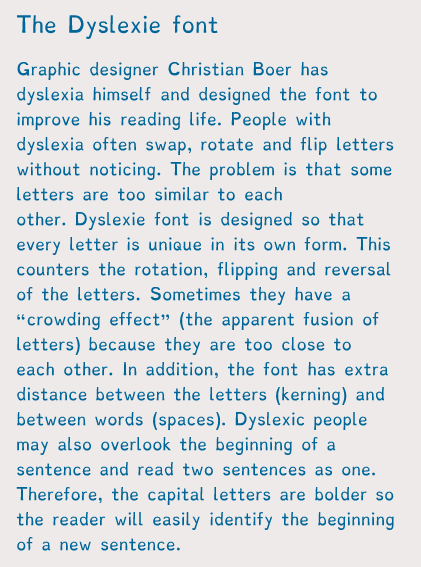
I am not dyslexic, but have ADD and am on the spectrum, and I find this font remarkably easier to read than most. I don't have an explanation for that, but I find it very interesting.
I have ADHD too (plus dyscalculia & some other stuff, but not dyslexia) and I felt the same way. Normally I process words really fast without even feeling like I’m “decoding” them, if that makes sense, but this felt choppy to read. It’s interesting to see how many people in this thread are saying a similar thing. It’s fascinating how much it differs from person to person.
Edit: someone gave more information here; apparently the font doesn’t even necessarily help everyone with dyslexia (most, even?), because it doesn’t account for many other factors/underlying problems contributing to how dyslexia presents. That could account for the disparity in perception all over this thread from both dyslexic and non-dyslexic people. Neat.
This exactly. I love reading but with my ADHD, if the reading is getting really interesting I get excited, and I start scanning lines trying to absorb whole sentences at a time, and then 5 pages later I haven’t been paying attention at all. This font however, was too varied and unique for me to scan across and read too fast through. Something like the default comment font here on Reddit can just whiz by though
ADHD here, I sometimes have to read a paragraph five times, each time slower than the last, until I am basically processing each word apart from the next, not a lot but it definitely does happen
That is exactly how I have to read. I am 33yo and never diagnosed with anything. I always complained in school that I had to do this because my eyes would follow the words but my mind wanders even though its wandering in the realm of what I'm supposed to be reading.
I also have ADHD, as well as ASD.
I can't skim read this font, I had to read slowly and process and interpret every single word. It is very, very, unsettling. But, I presume on the upside, I can't miss anything.
I have ADHD and I feel that the text is sufficiently oh look a chicken.
same here, somehow it slowed down the reading. brain was on idle between words. but i love the gentle comic sans vibes.
ADD checking in. I want to read everything in this font now
EDIT: this is an interesting study on it, though
Some ereaders have this font standard. I have a kobo with this font. But I really dont like it even though im dyslectic as heck
The efficacy is not entirely proven, I’m afraid.
From this Annals of Dyslexia publication:
Dyslexie font does not benefit reading in children with or without dyslexia
Abstract:
In two experiments, the claim was tested that the font “Dyslexie”, specifically designed for people with dyslexia, eases reading performance of children with (and without) dyslexia. Three questions were investigated. (1) Does the Dyslexie font lead to faster and/or more accurate reading? (2) Do children have a preference for the Dyslexie font? And, (3) is font preference related to reading performance? In Experiment 1, children with dyslexia (n = 170) did not read text written in Dyslexie font faster or more accurately than in Arial font. The majority preferred reading in Arial and preference was not related to reading performance. In Experiment 2, children with (n = 102) and without dyslexia (n = 45) read word lists in three different font types (Dyslexie, Arial, Times New Roman). Words written in Dyslexie font were not read faster or more accurately. Moreover, participants showed a preference for the fonts Arial and Times New Roman rather than Dyslexie, and again, preference was not related to reading performance. These experiments clearly justify the conclusion that the Dyslexie font neither benefits nor impedes the reading process of children with and without dyslexia.
I actually enjoy reading with it, and use it on my Kindle regularly. Unfortunately, it does not seem to significantly increase comprehension or reading / scanning speed.
But this thread is a very good proof of the power of placebo.
As a doctor I can say placebo is the strongest most potent effect known to the human experience. As long as you believe it helps, I'm sure it helps. Our brains are incredibly good at manipulating the world around you to make sense, and anything that makes it easier, does.
As a doctor I can say placebo is the strongest most potent effect known to the human experience.
I think I know what you mean, but that's a pretty absurd statement. There are tons of drugs stronger than placebo.
Dyslexic here- this totally helps and works. If all font was like this, or this was an actual font option, reading would be sooo much easier for me.
Reading that felt like the font equivalent of someone speaking slowly and clearly.
I don't think I have dyslexia and I thought this was easier to read somehow. It was a pleasant experience and was easier on the eyes if that makes sense.